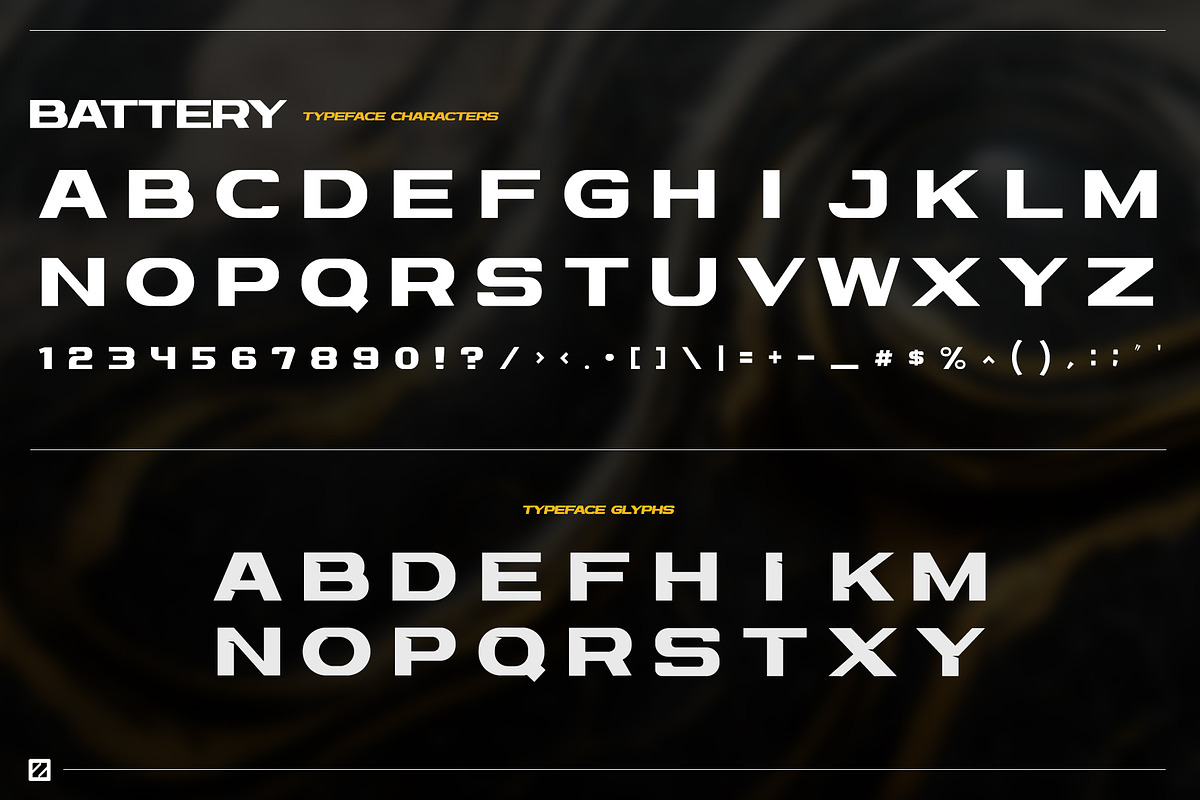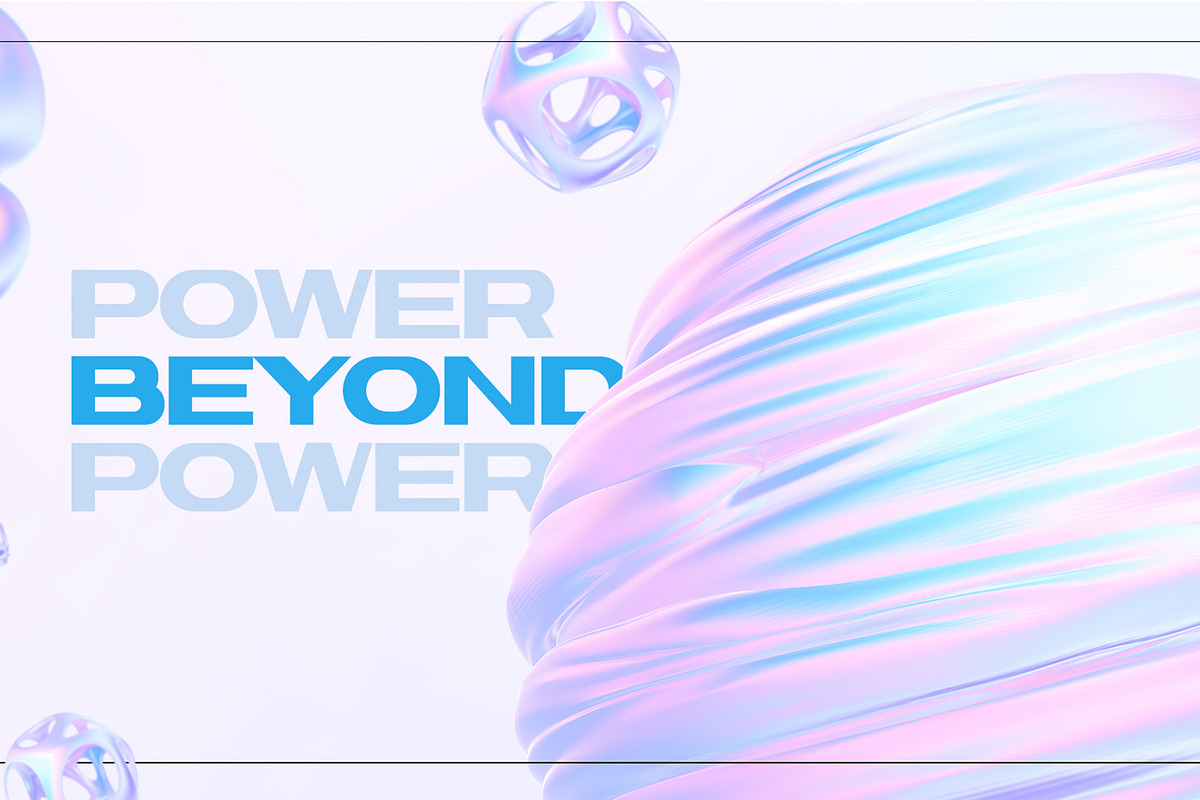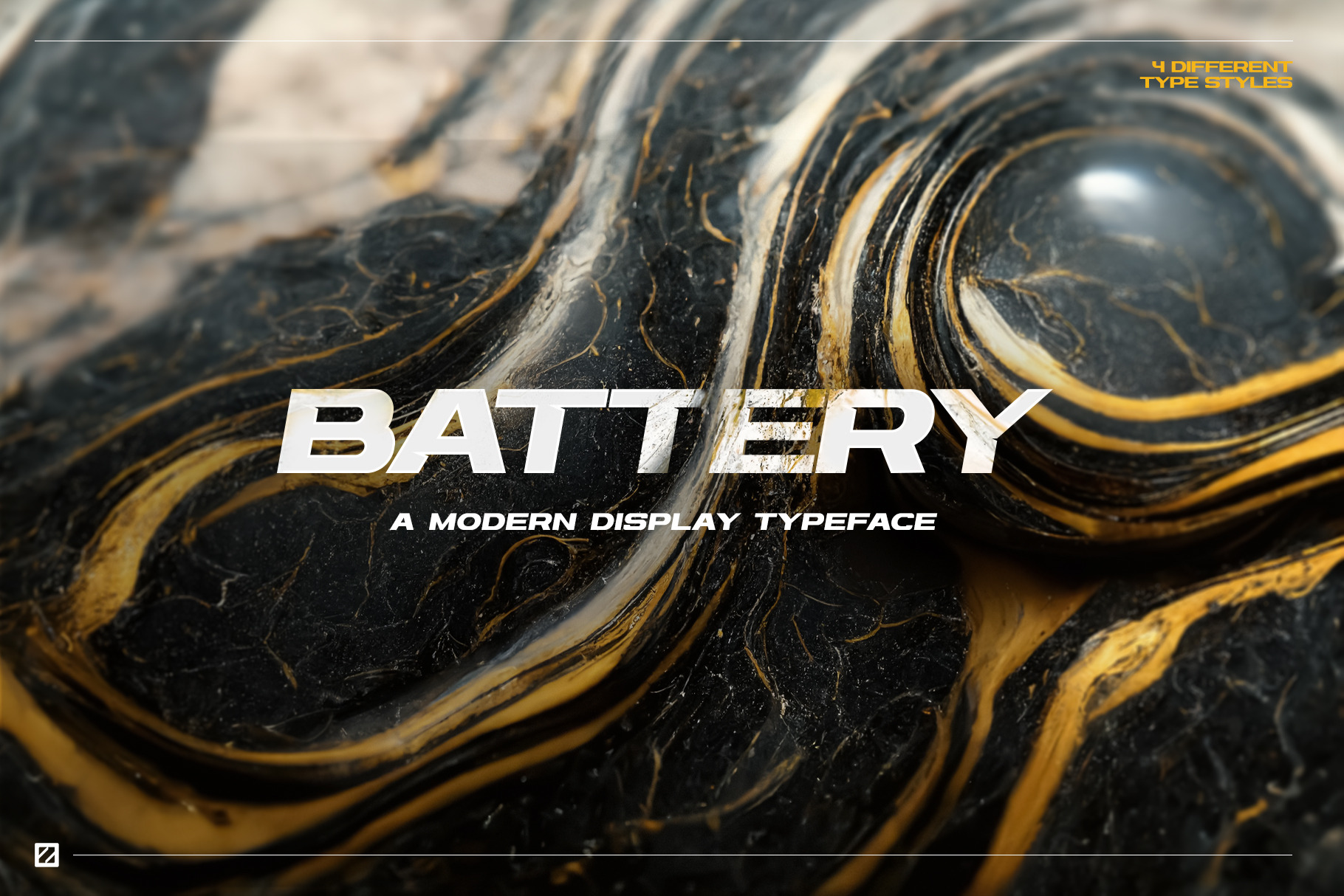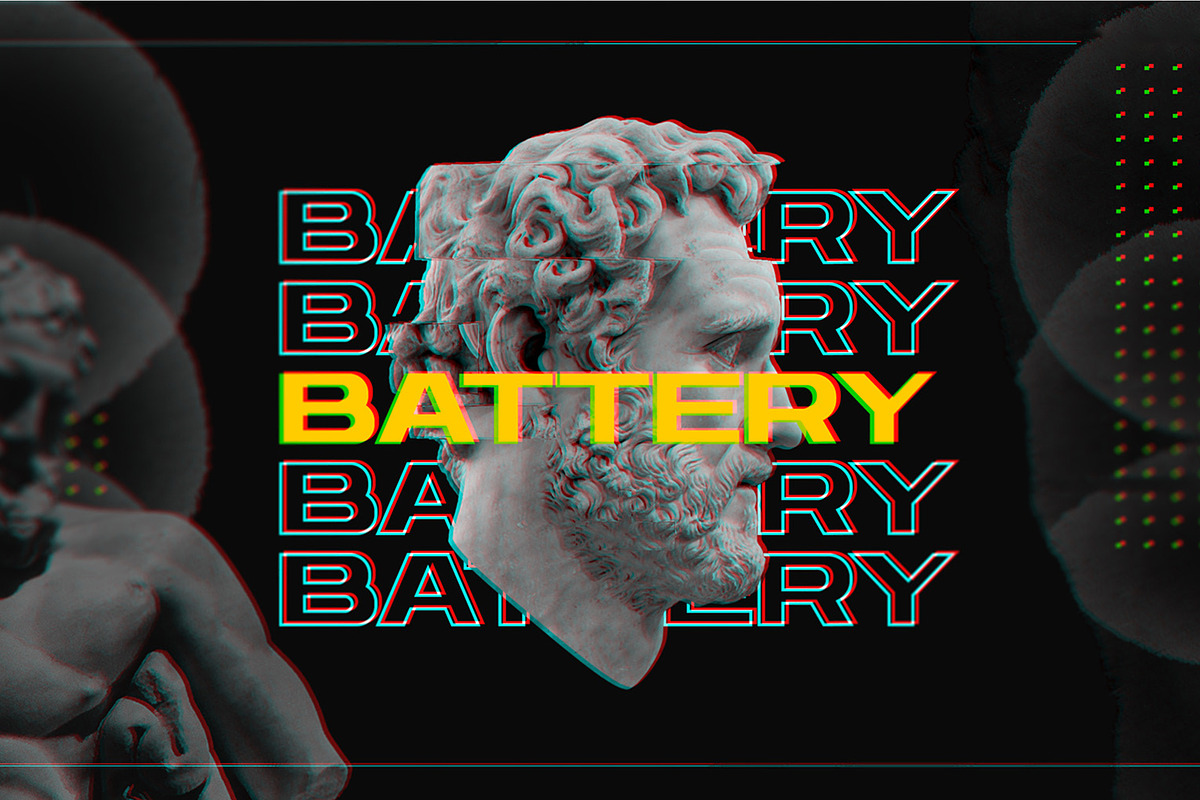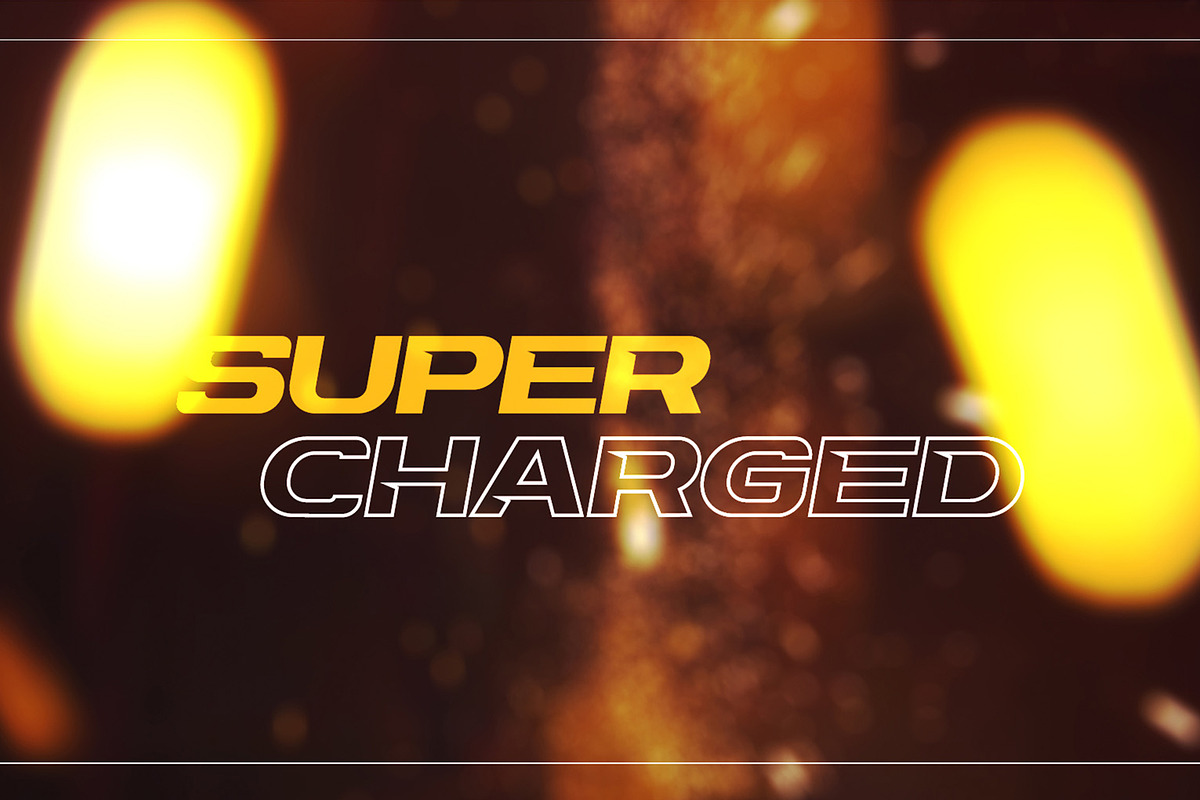
Battery Typeface Family
Fuel your creativity and power up your design projects with our brand-new display font, "Battery." This electrifying typeface is designed to capture attention, make a bold statement, and infuse energy into your designs. With its sleek and modern aesthetic, "Battery" is perfect for a wide range of applications, from branding and advertising to posters, headlines, and more.
Ideal Usage:
Branding: Create memorable and striking logos that leave a lasting impression. Headlines: Grab your audience's attention with powerful and captivating headlines. Posters & Flyers: Design eye-catching promotional materials for events, products, or services. Web Design: Add a modern and tech-savvy flair to your website's typography. Packaging: Make your products jump off the shelf with standout packaging design. Editorial Design: Elevate magazine layouts, book covers, and editorial spreads. Get Charged with "Battery" Font: Unleash the power of "Battery" in your design arsenal and watch your projects come to life with energy and style. Whether you're aiming for a futuristic, dynamic, or simply attention-grabbing look, "Battery" has the versatility and visual impact to electrify your designs.